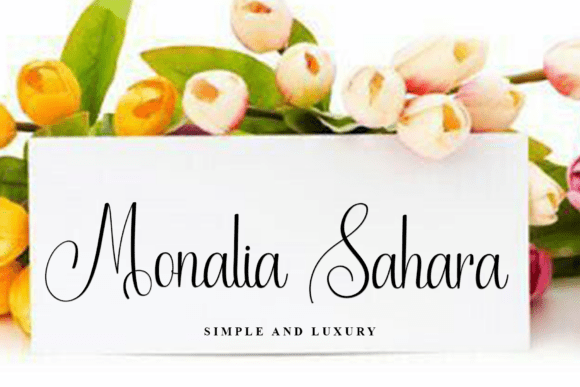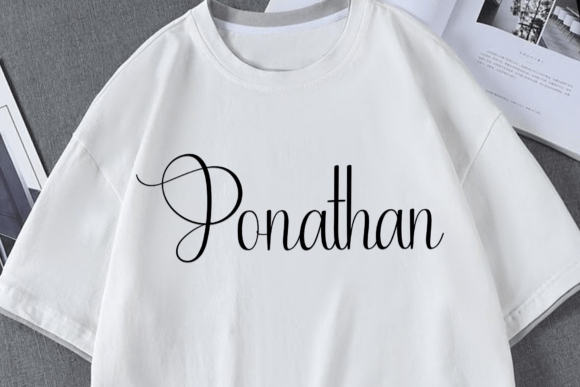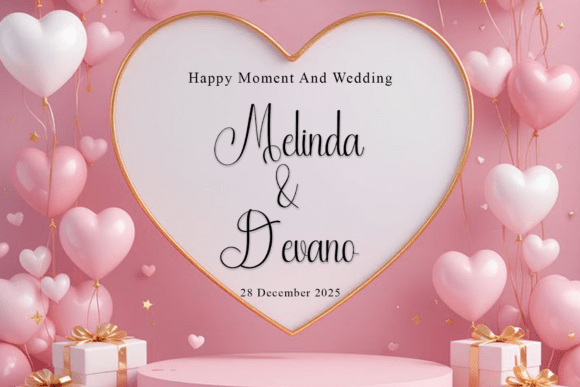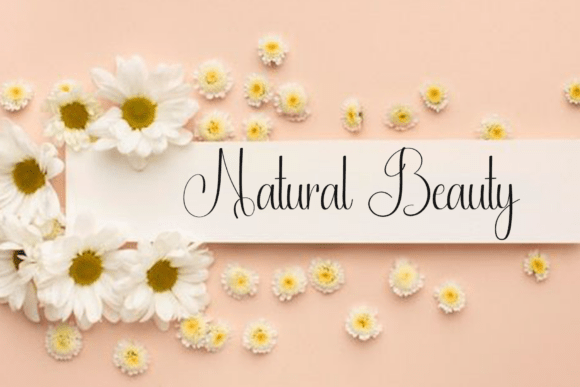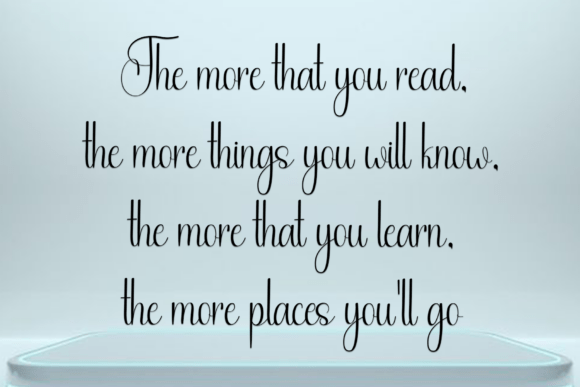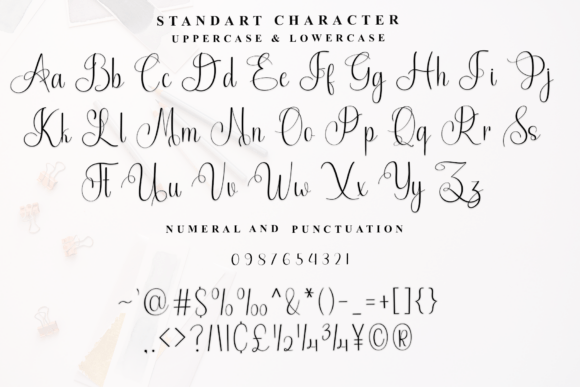
Discover the Elegance of Beautiful Fonts: A Delicate Handwritten Font
Are you a designer or crafter looking for a font that exudes elegance and sophistication? Look no further than Beautiful Fonts, a delicate and elegant handwritten font that is sure to capture your heart. With its distinct and well-balanced letters, this font is a masterpiece that can elevate your designs to new heights.
The Versatility of Beautiful Fonts
One of the standout features of Beautiful Fonts is its incredibly versatile style. Whether you’re creating a wedding invitation, a brand logo, or a social media graphic, this font can adapt to any design aesthetic. Its delicate lines and elegant curves make it perfect for creating sophisticated and eye-catching designs that will leave a lasting impression.
What Makes Beautiful Fonts So Special?
So, what sets Beautiful Fonts apart from other fonts? Here are just a few features that make it a standout:
- Delicate and elegant design: Each letter is carefully crafted to create a sense of elegance and refinement.
- Distinct and well-balanced letters: The font’s letters are designed to be easily readable, while also being unique and stylish.
- Versatile style: Beautiful Fonts can be used in a variety of design contexts, from formal to informal.
- Easy to read: Despite its delicate design, Beautiful Fonts is surprisingly easy to read, making it perfect for body text as well as headings.
How to Use Beautiful Fonts in Your Designs
Now that you’re falling in love with Beautiful Fonts, let’s talk about how to use it in your designs. Here are a few ideas to get you started:
- Wedding invitations and stationery: Beautiful Fonts is perfect for creating elegant and sophisticated wedding invitations, save-the-dates, and other stationery.
- Branding and logos: Use Beautiful Fonts to create a unique and memorable brand logo that exudes elegance and sophistication.
- Social media graphics: Add a touch of elegance to your social media graphics, such as Instagram posts and Facebook covers, with Beautiful Fonts.
- Packaging design: Use Beautiful Fonts to create beautiful and eye-catching packaging designs that will make your product stand out.
Tips for Pairing Beautiful Fonts with Other Fonts
While Beautiful Fonts is stunning on its own, it can also be paired with other fonts to create a unique and interesting design. Here are a few tips for pairing Beautiful Fonts with other fonts:
- Pair with a bold font: Pair Beautiful Fonts with a bold, sans-serif font to create a striking contrast.
- Use a serif font for body text: Pair Beautiful Fonts with a serif font, such as Georgia or Times New Roman, for a classic and elegant look.
- Experiment with script fonts: Beautiful Fonts can also be paired with other script fonts to create a beautiful and elegant design.
In conclusion, Beautiful Fonts is a delicate and elegant handwritten font that is sure to capture your heart. With its distinct and well-balanced letters, versatile style, and ease of use, it’s the perfect font for designers and crafters looking to create sophisticated and eye-catching designs. Whether you’re creating wedding invitations, brand logos, or social media graphics, Beautiful Fonts is the perfect choice. So why wait? Fall in love with Beautiful Fonts today and take your designs to new heights!